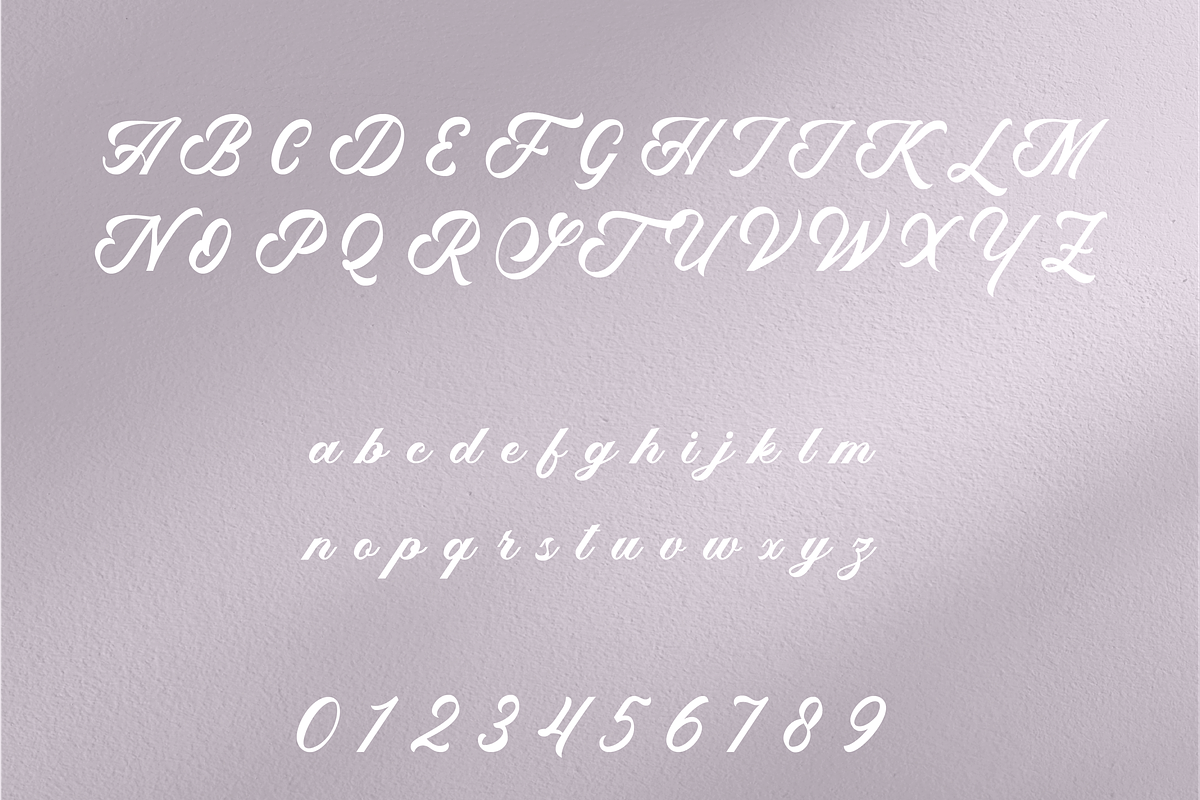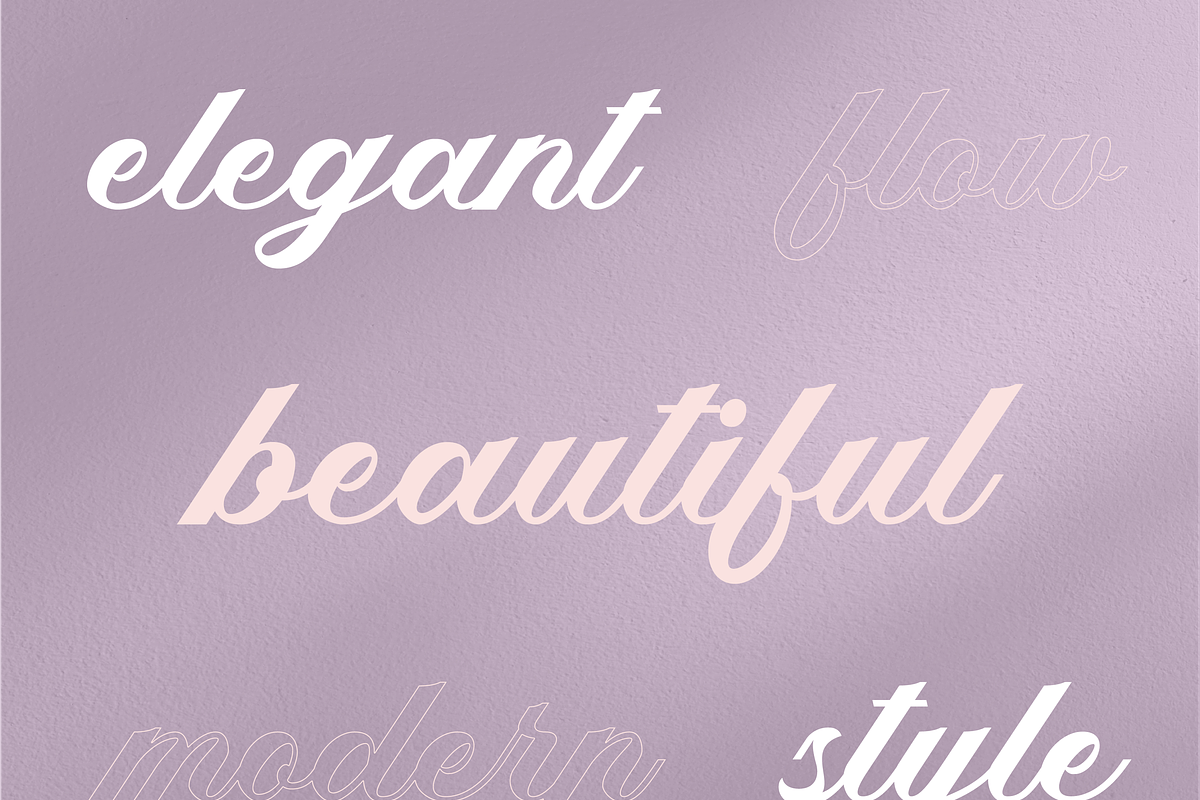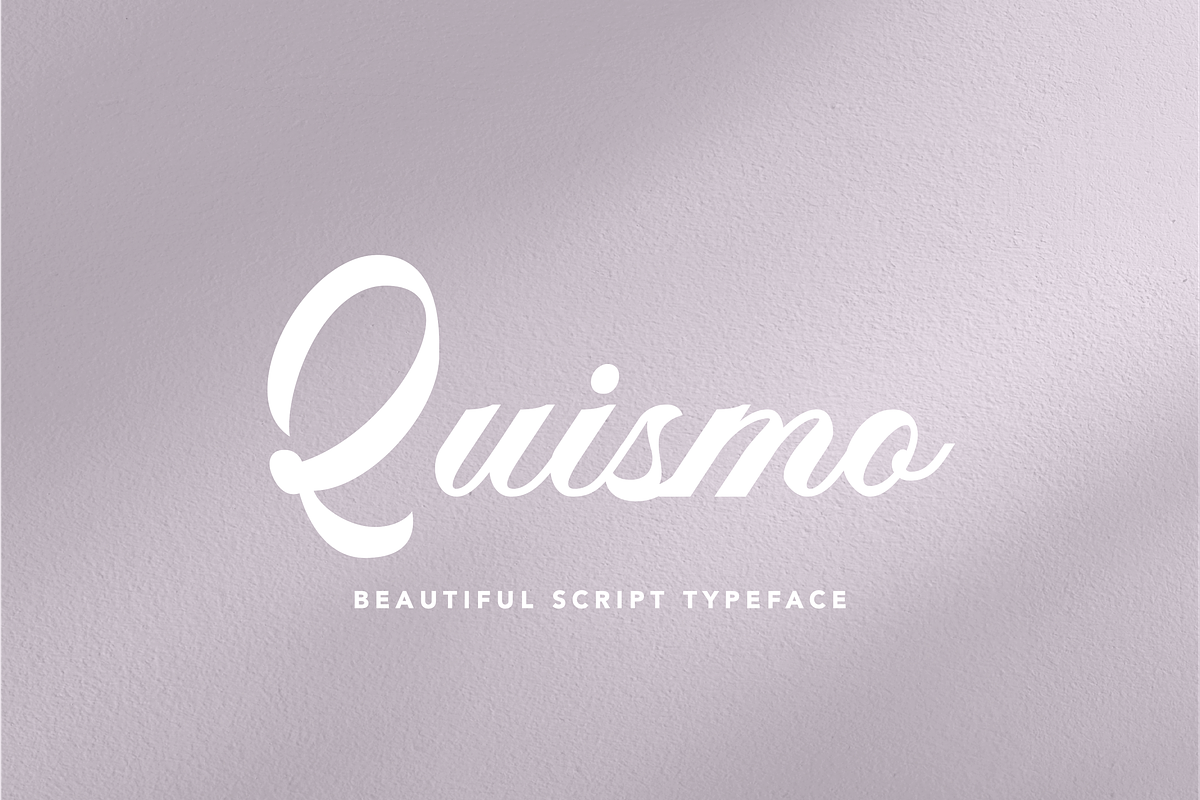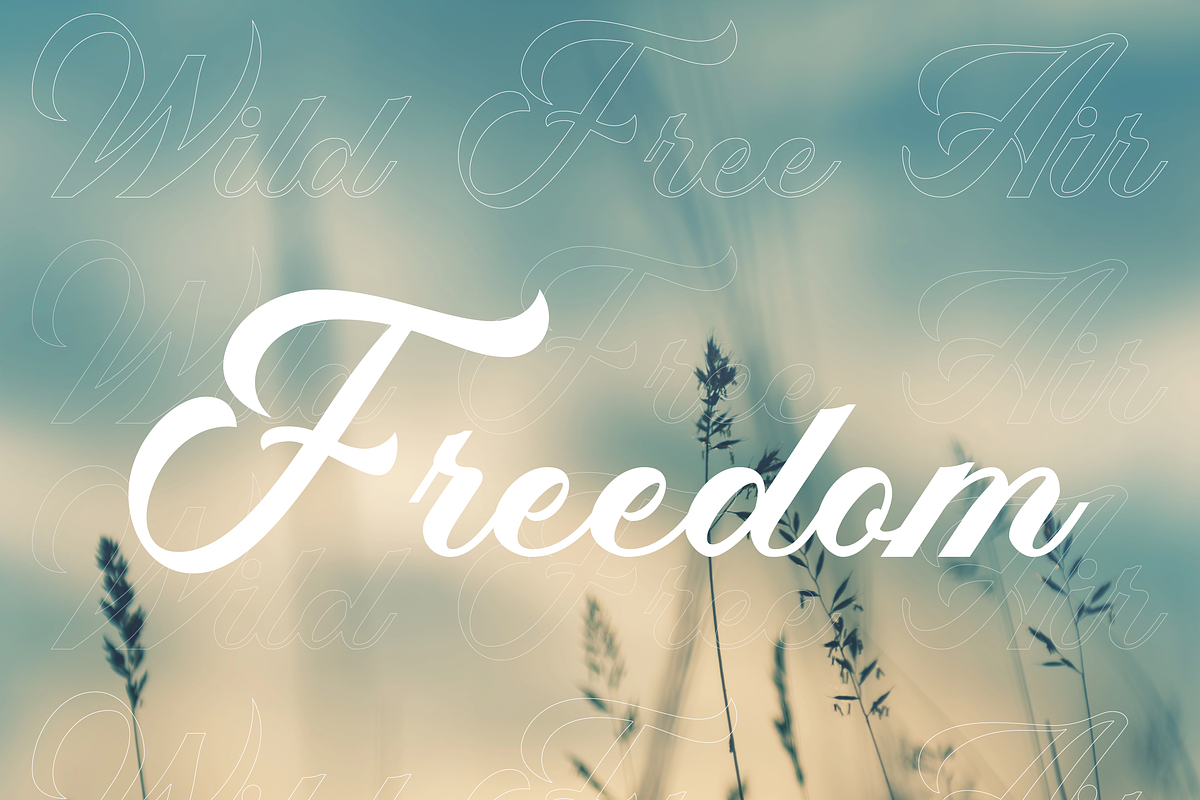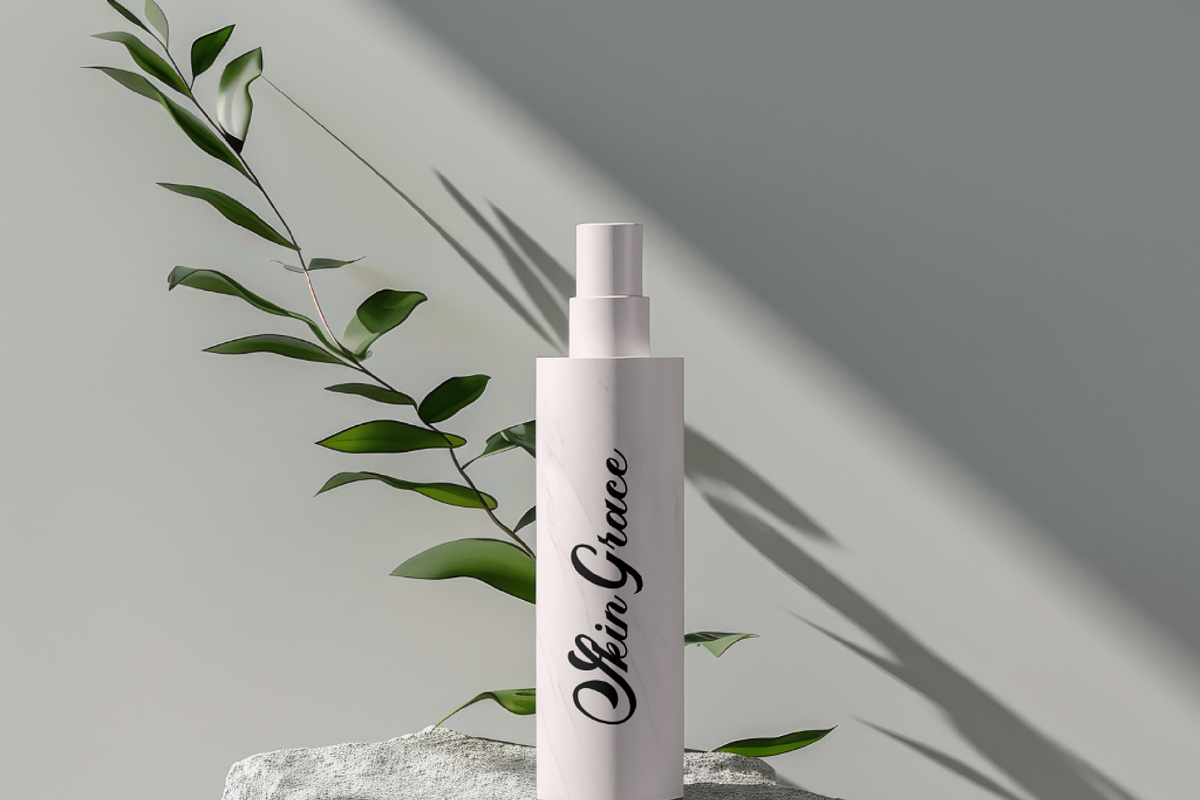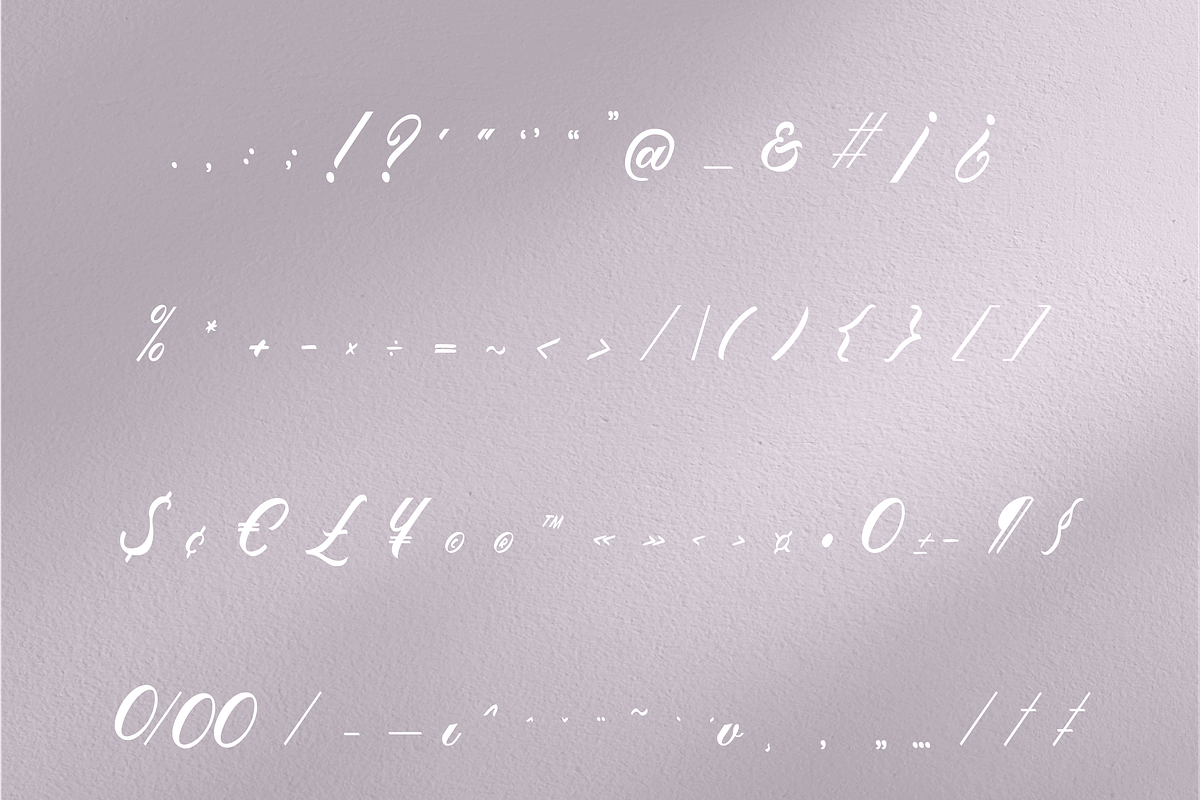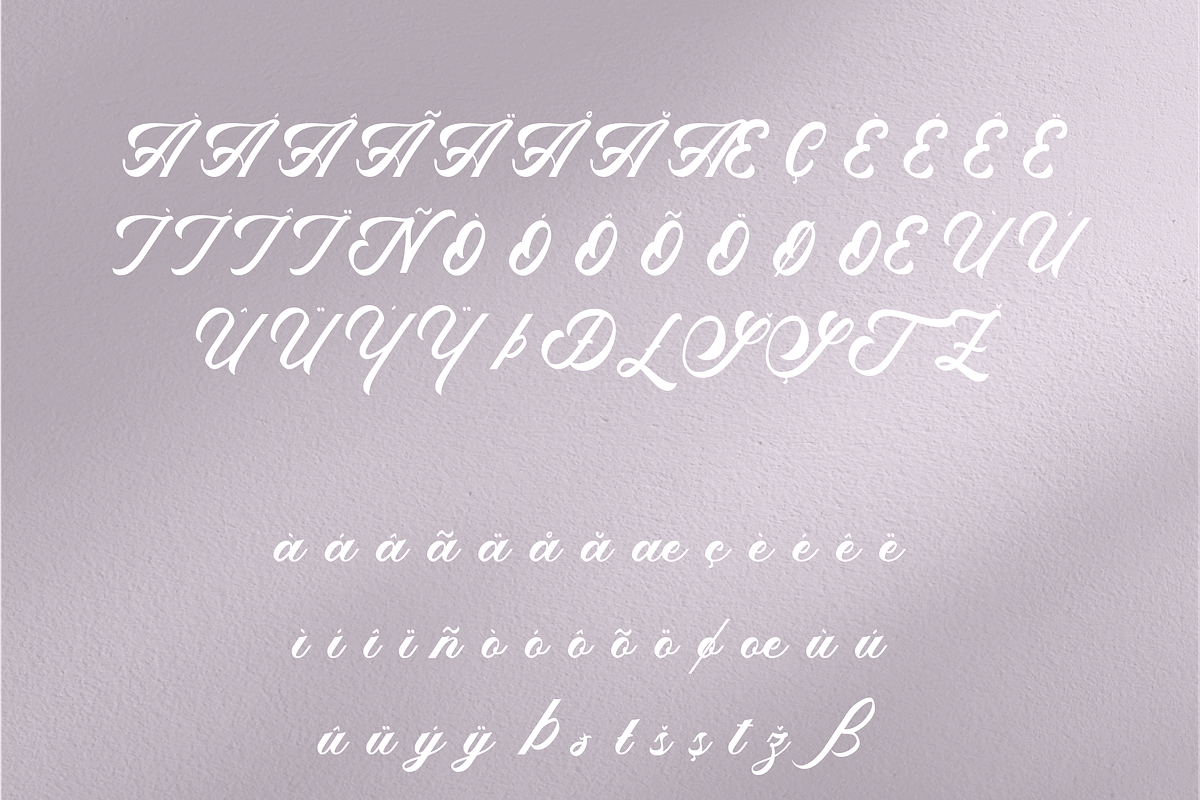
Quismo Script Font
Quismo Font – Bold, Robust, and Commanding
Quismo is a strong and assertive script typeface designed to make a bold statement. With its powerful presence and dynamic strokes, this font is ideal for headlines, logos, and branding materials that require confidence and authority.